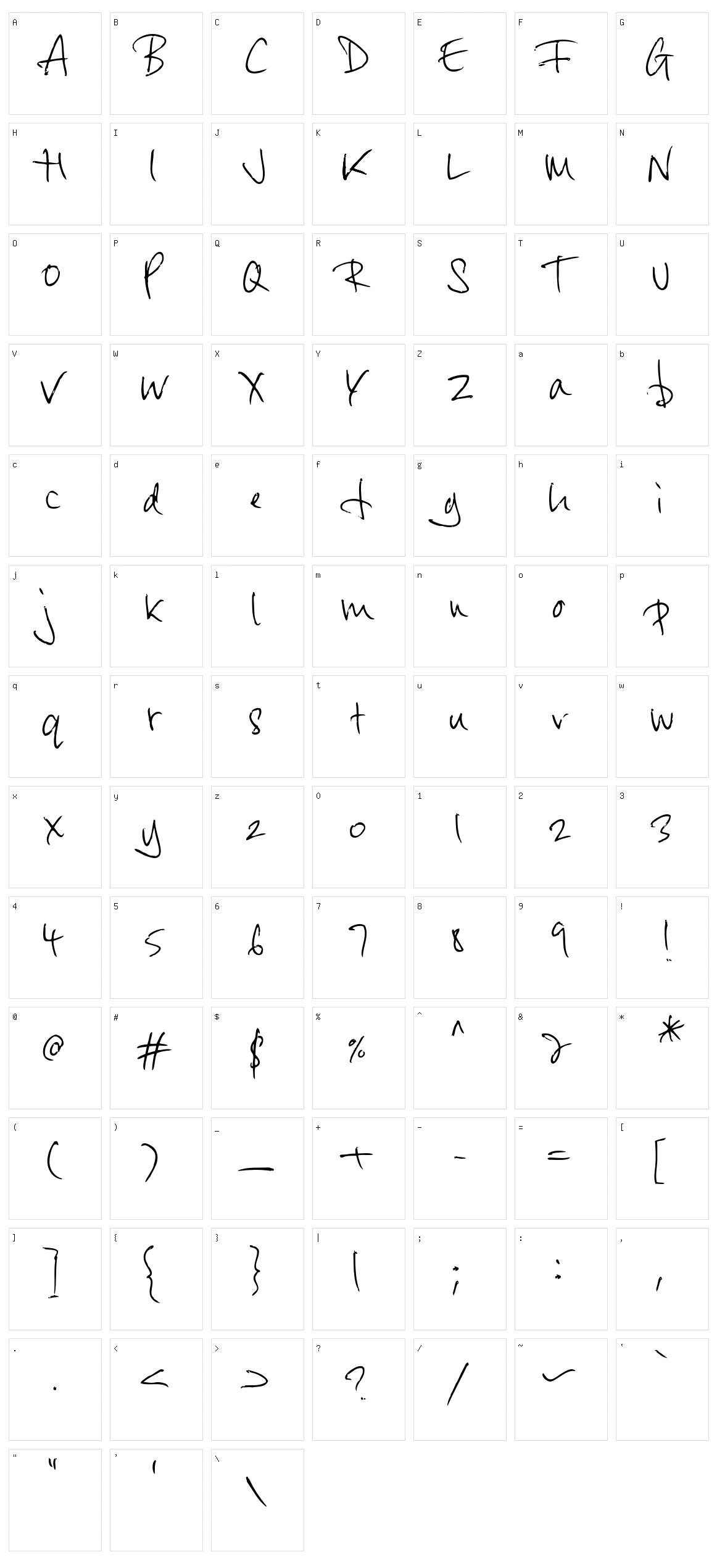
The free font Byrow is carefully designed by Benjamin Green, showcasing a thoughtful balance of creativity and usability and falls under the Script font style. When you download the ZIP file, it contains only 25.32 KB of font files, making it lightweight and quick to download. Please review the license details below to understand permitted usage and distribution rights. If license information is not available, we recommend using this font for personal projects only or contacting the author directly for commercial usage permissions.